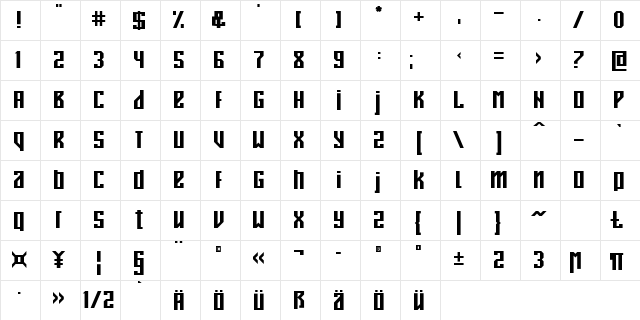
desonanz Regular
Foundry: Aleksandar Nikov
Designer: Aleksandar Nikov
Design Context for desonanz
desonanz is a composed and adaptable typeface that performs quietly and consistently across a wide range of design contexts.